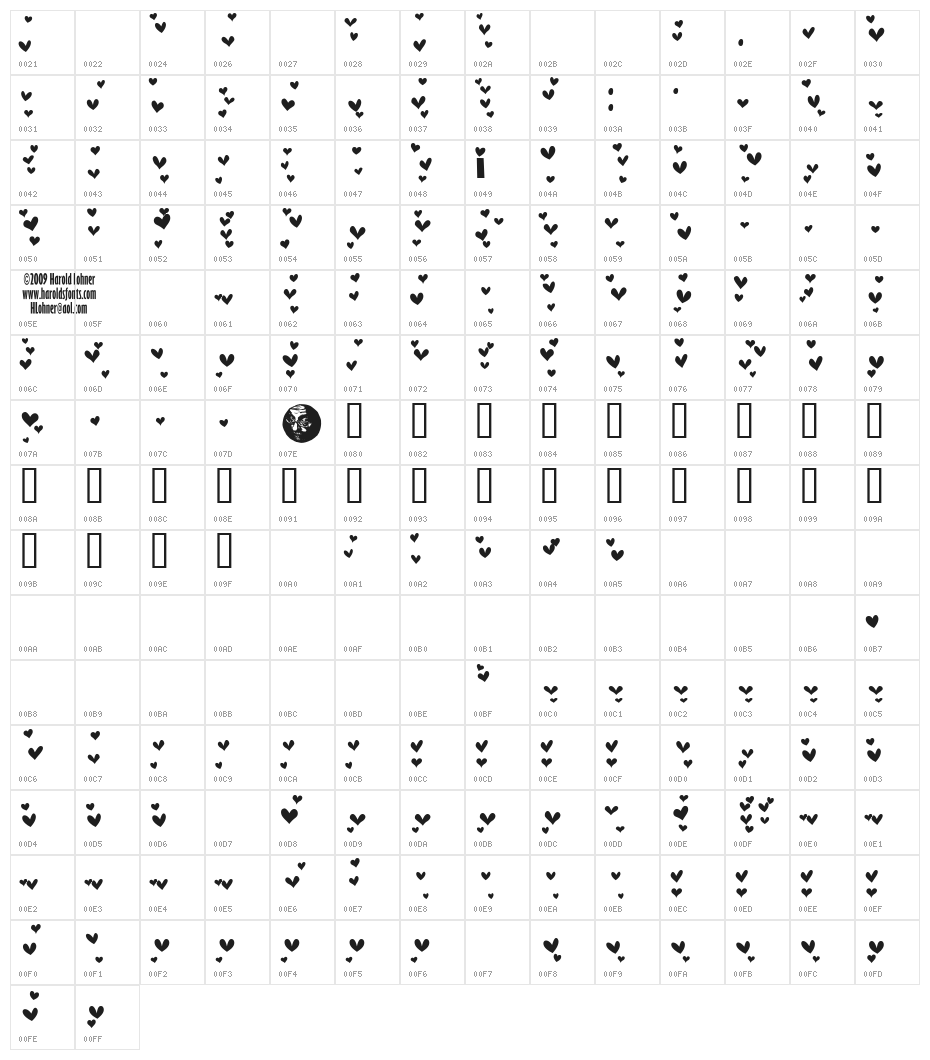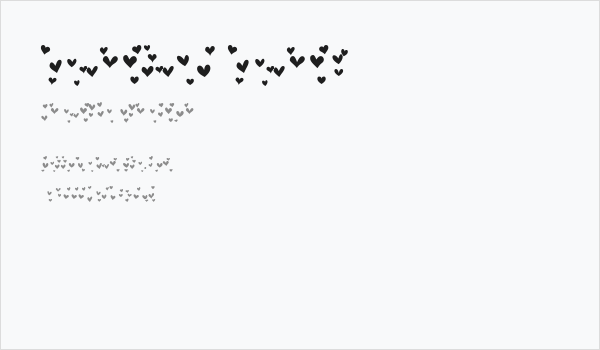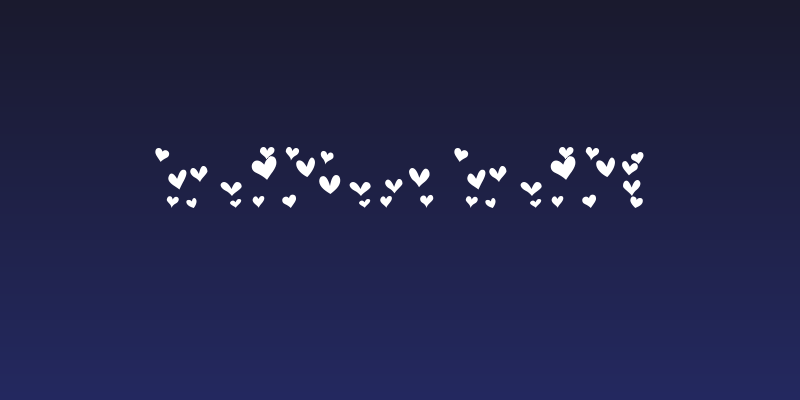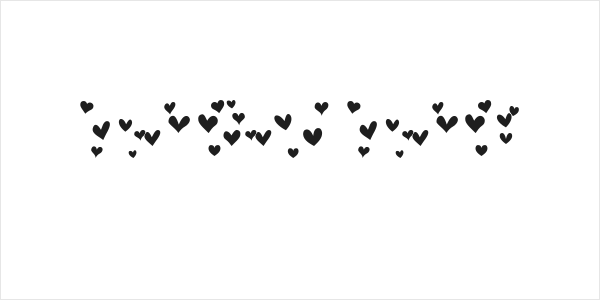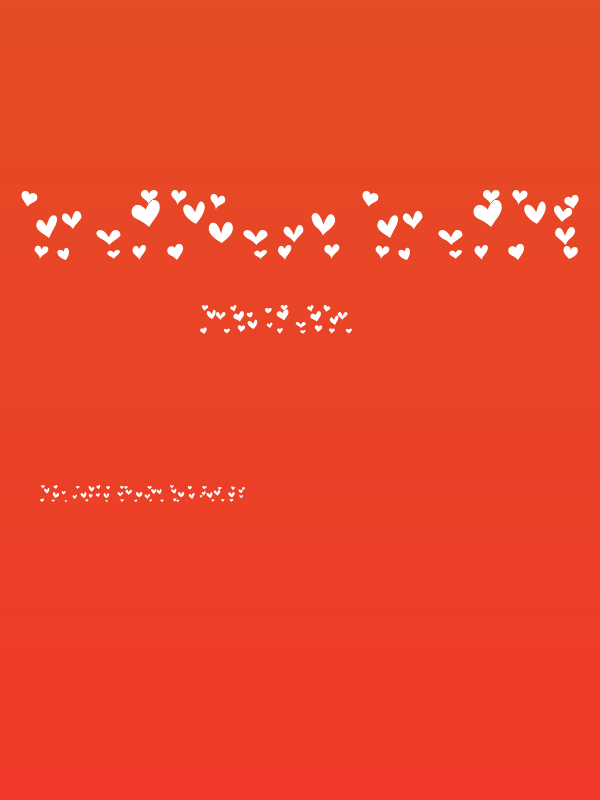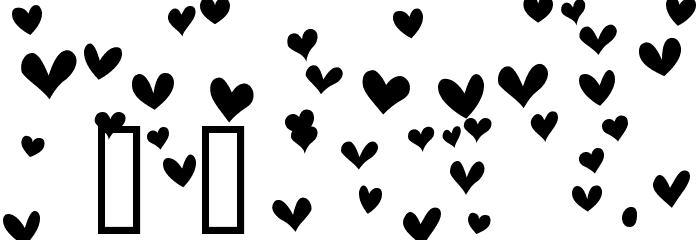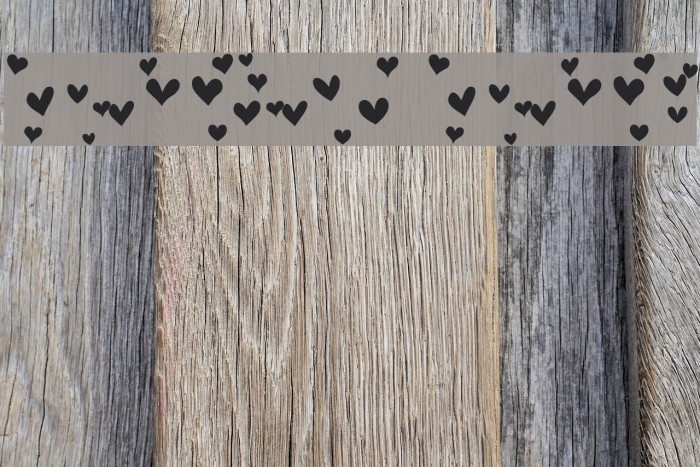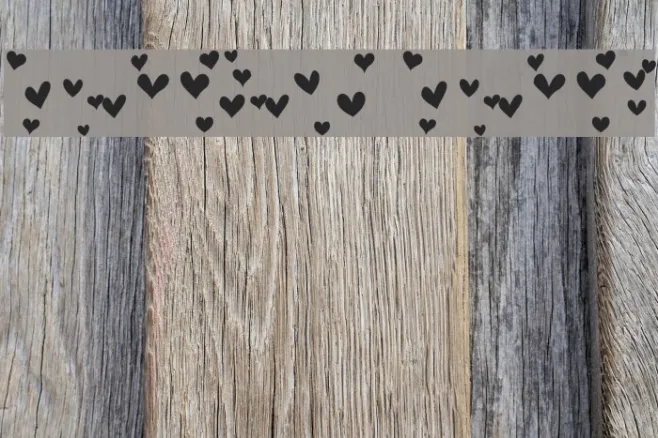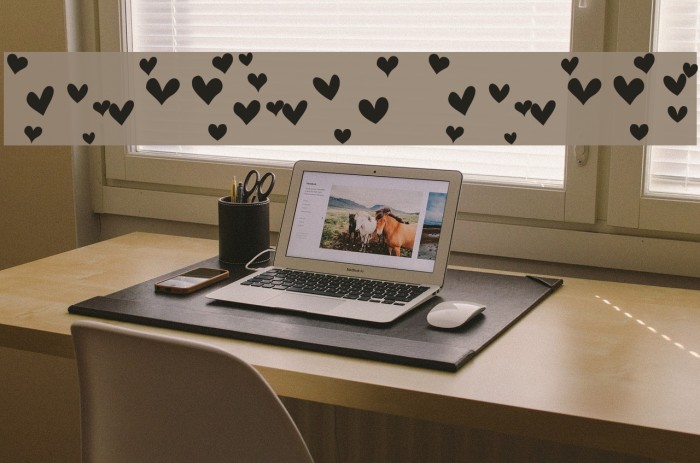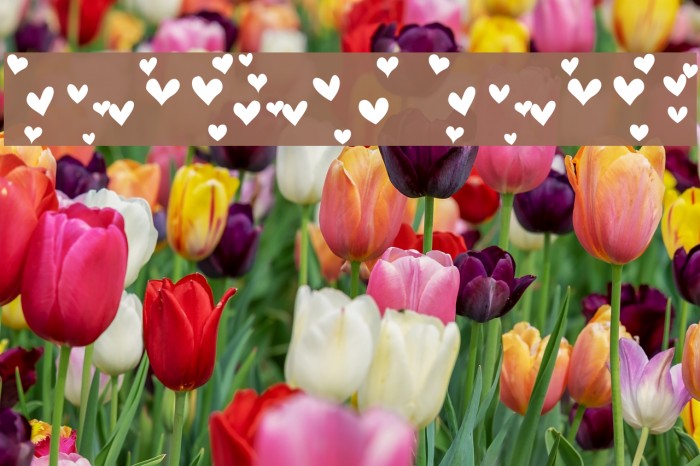
Heartland Hearts Font
Heartland Hearts Description
A decorative font composed entirely of heart shapes in various sizes, arranged to represent letters, numbers, and symbols, creating a playful and whimsical visual effect.
| Overall Style | Decorative, Playful, Whimsical |
| Use Case | Headlines, Posters, Greeting cards, Themed graphics |
| Proposed Projects | Valentine's Day cards, romantic invitations, playful posters, children's party materials, themed social media graphics. |